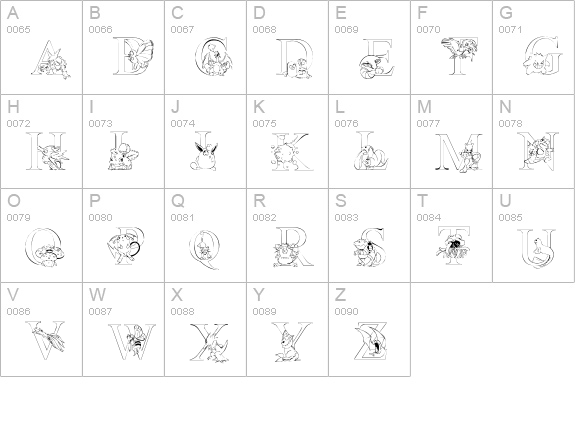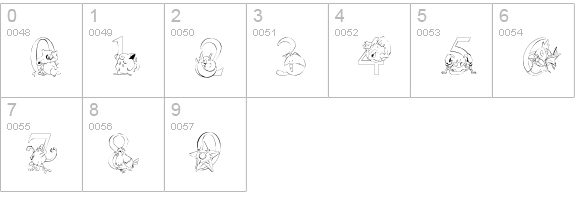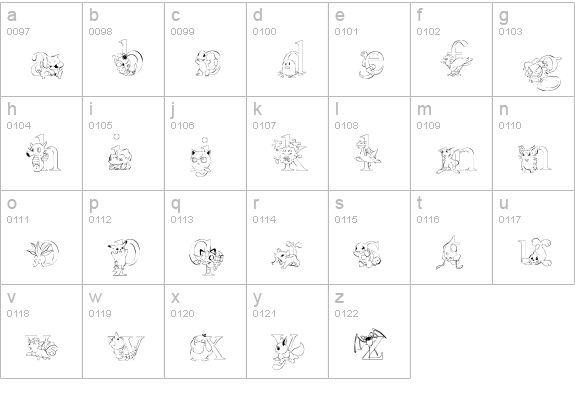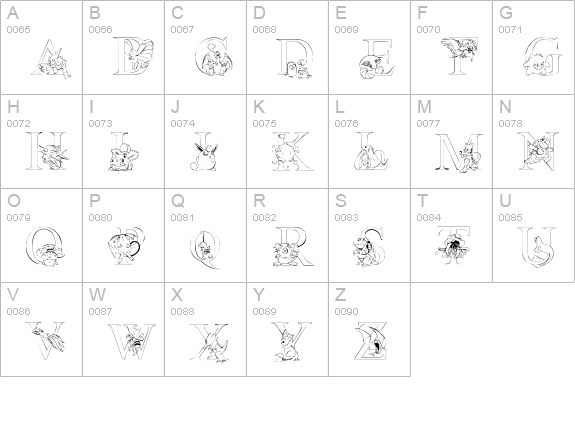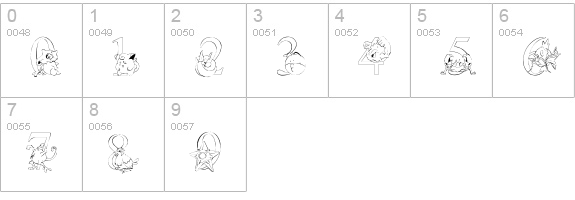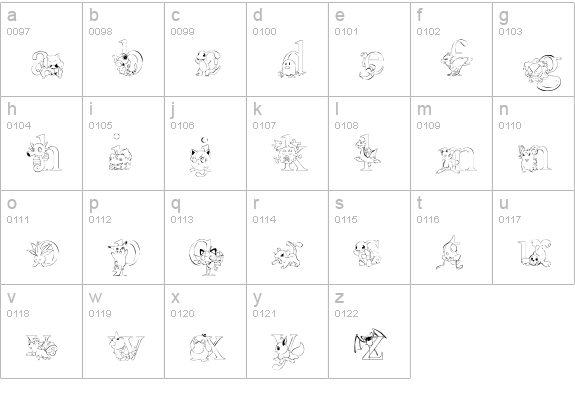
The LMS Poke'mon Master Outline font is a playful and whimsical typeface that is perfect for adding a touch of fun and excitement to your projects. With its bold outlines and unique design, this font is sure to make a statement and capture the attention of your audience. Whether you are working on a children's book, a party invitation, or a poster for a gaming event, the LMS Poke'mon Master Outline font will bring a sense of adventure and imagination to your work. Best of all, this font is available for free download at FontsMarket.com, making it accessible to all designers and creatives looking to add a touch of magic to their designs. So why wait? Download the LMS Poke'mon Master Outline font today and let your creativity soar!